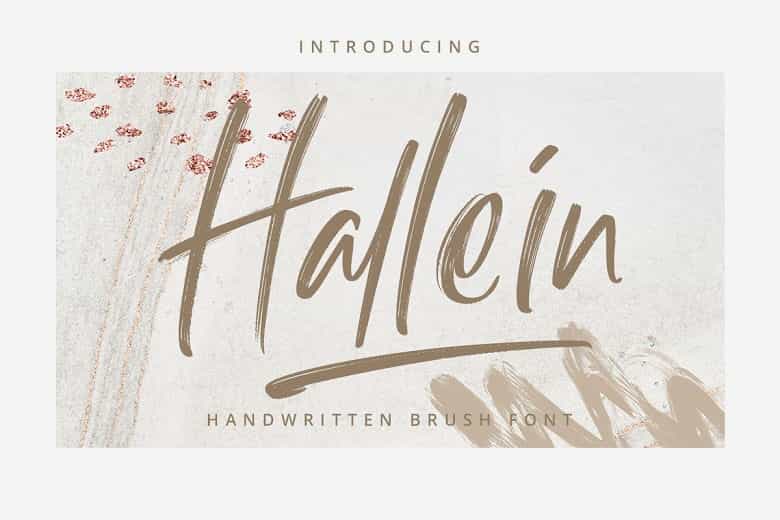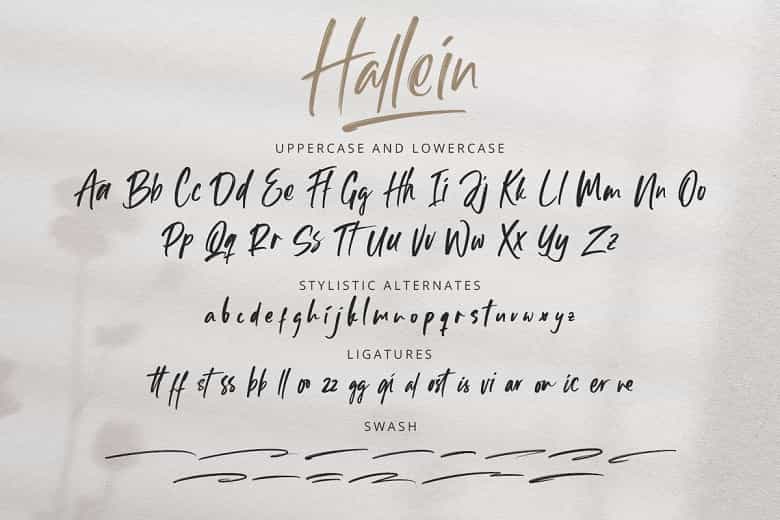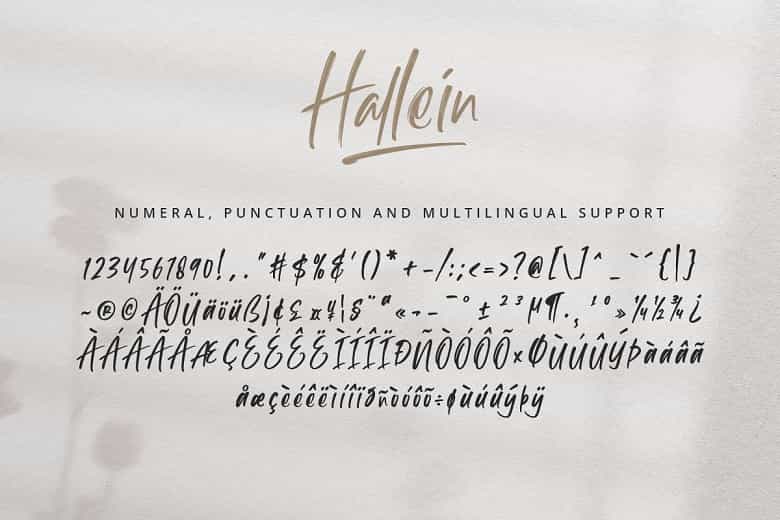
Hallein is a handwritten brush script font. Hallein Font appears to be very artistic and has a kind of a hand made look in its design. The imperfection and marks on the font design also enhance the look of the font and give it that modern style.